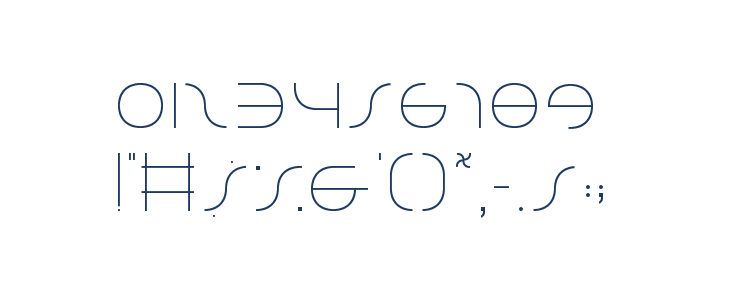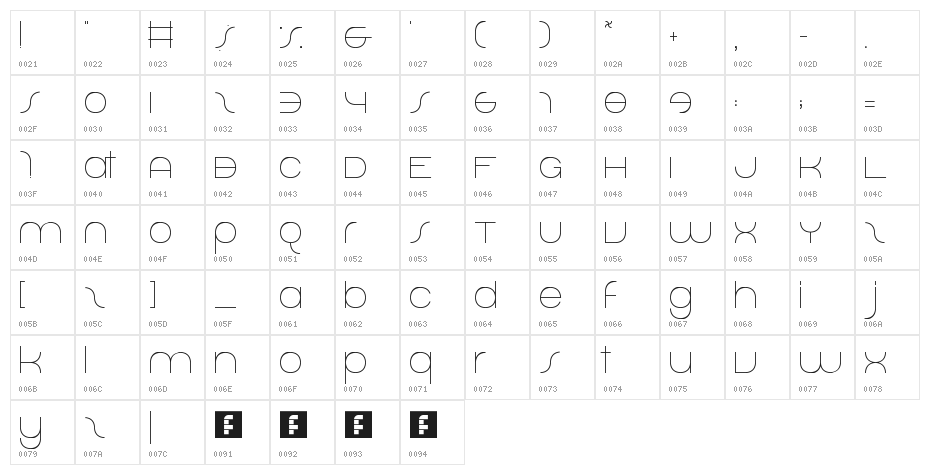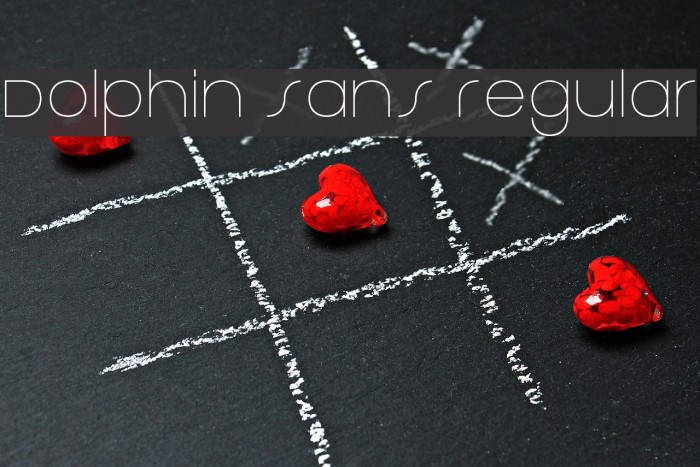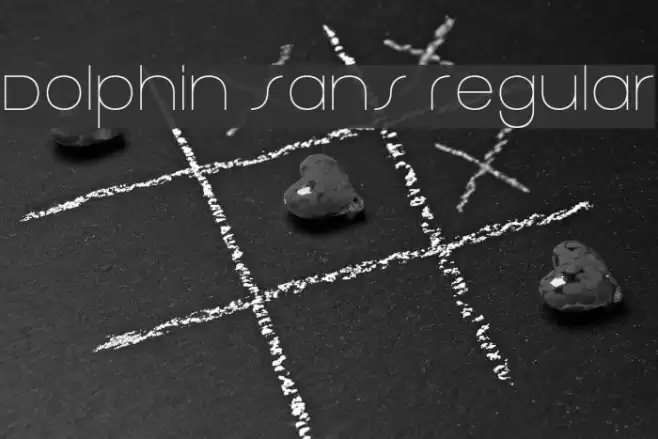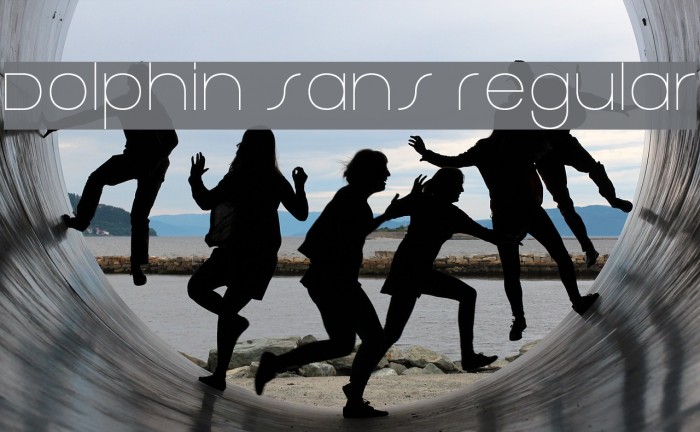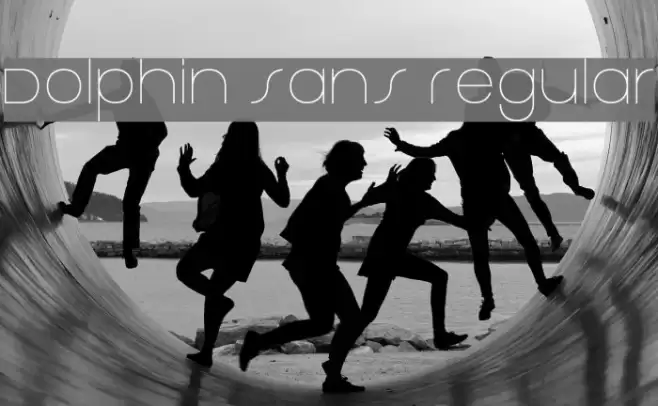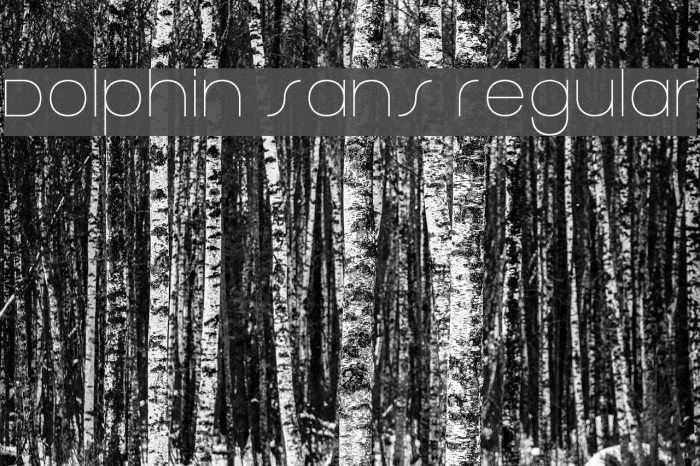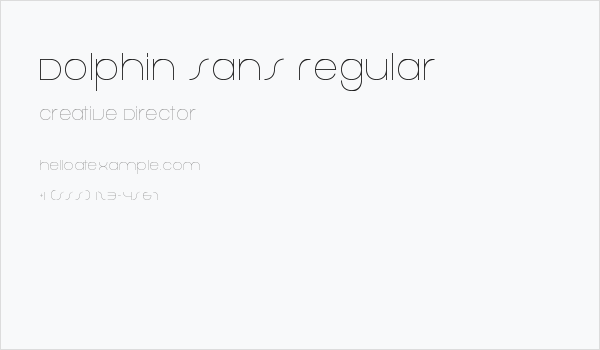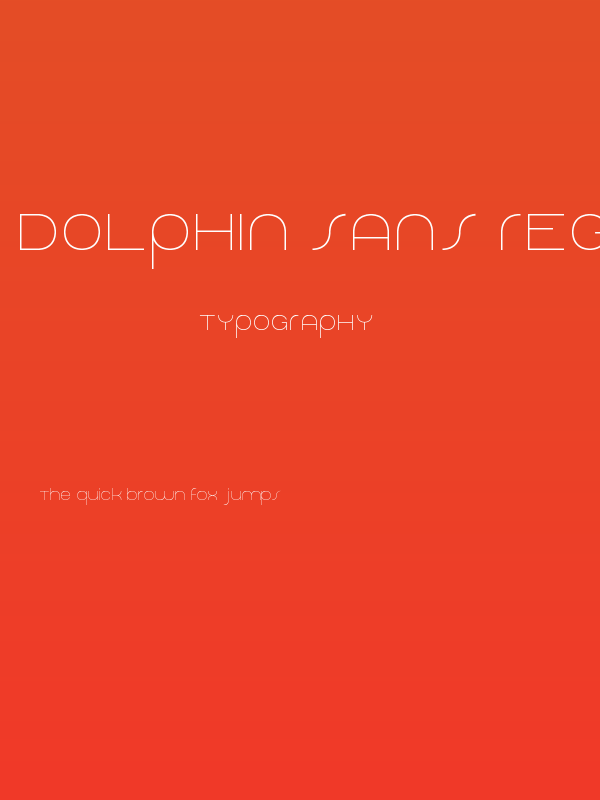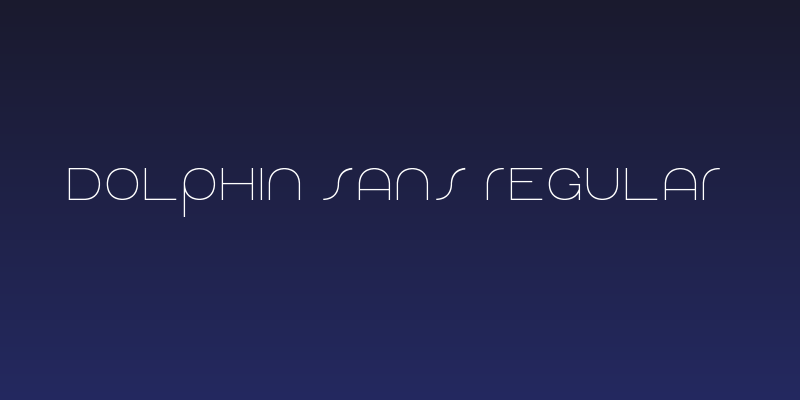
Dolphin Sans Regular Font
Dolphin Sans Regular Description
This font features a sleek, modern design with a minimalist aesthetic. The characters are formed with clean, geometric lines and subtle curves, giving it a futuristic feel. The uppercase letters have a distinctive style with rounded edges and open counters, while the lowercase letters maintain a consistent flow with a similar geometric approach. The numerals are uniquely crafted, offering a cohesive look with the rest of the typeface. Special characters are designed to complement the overall style, maintaining the clean and modern appearance. The font's simplicity and elegance make it versatile for various design applications.
| Proposed Projects | Ideal for tech branding, modern web design, minimalist posters, and futuristic product packaging. |